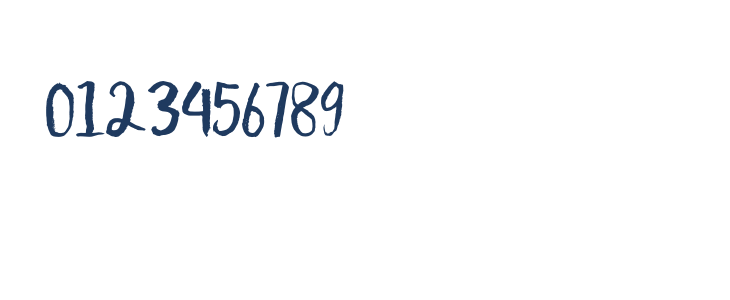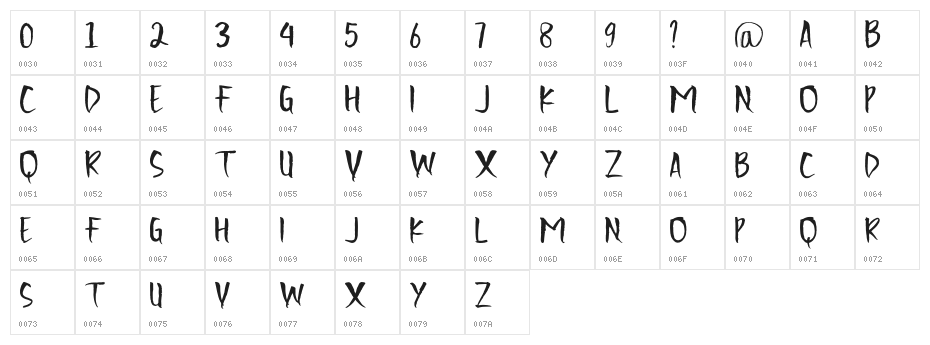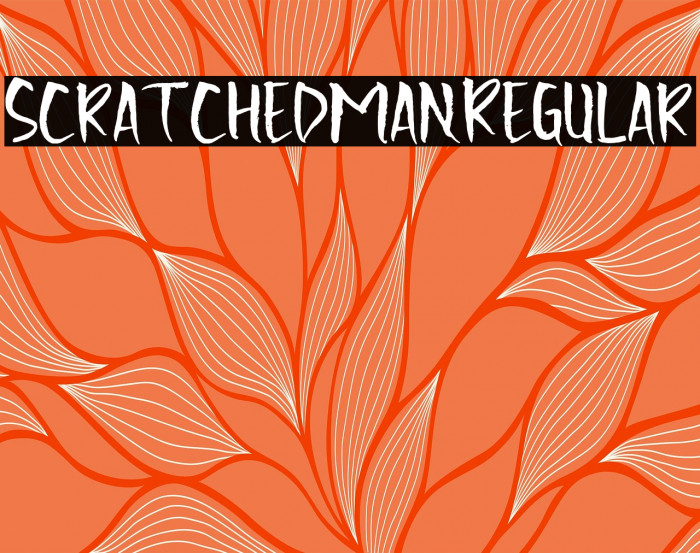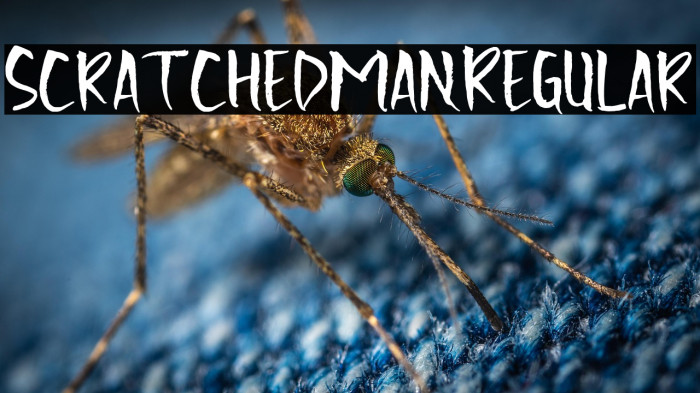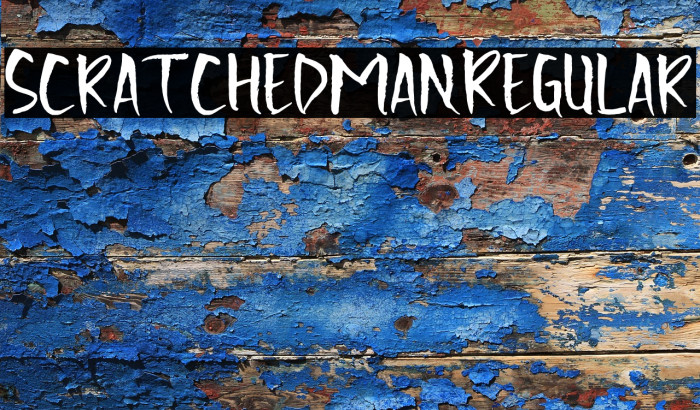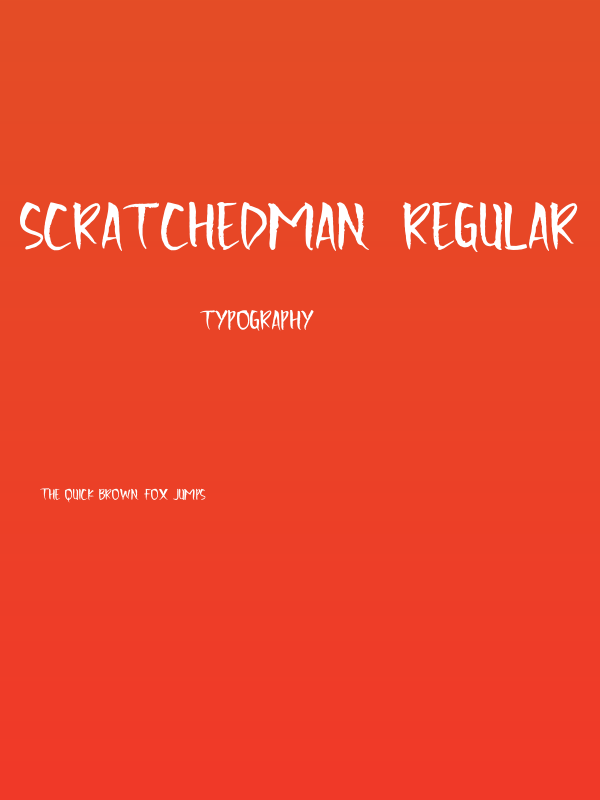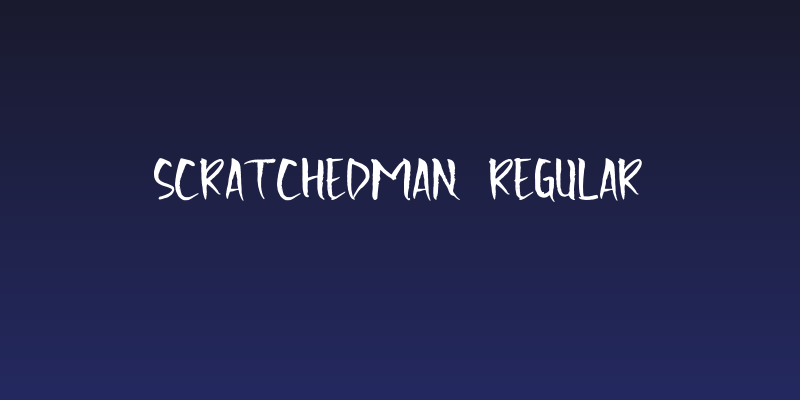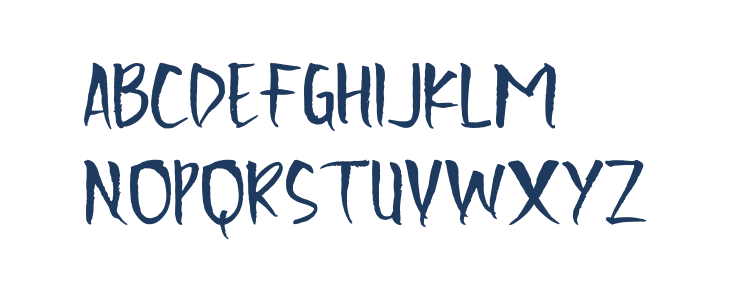
Scratchedman-Regular Font
Scratchedman-Regular Description
This font features a bold, hand-drawn style with a rough, textured appearance that mimics the look of brush strokes. The characters are slightly irregular, giving them a dynamic and energetic feel. The uppercase letters are tall and commanding, while the lowercase letters maintain a consistent flow. Numbers are equally bold and maintain the same textured style. This font is ideal for projects that require a raw, artistic touch, such as posters, album covers, or creative branding.
| Proposed Projects | Ideal for posters, album covers, artistic branding, and creative projects requiring a dynamic, hand-crafted look. |